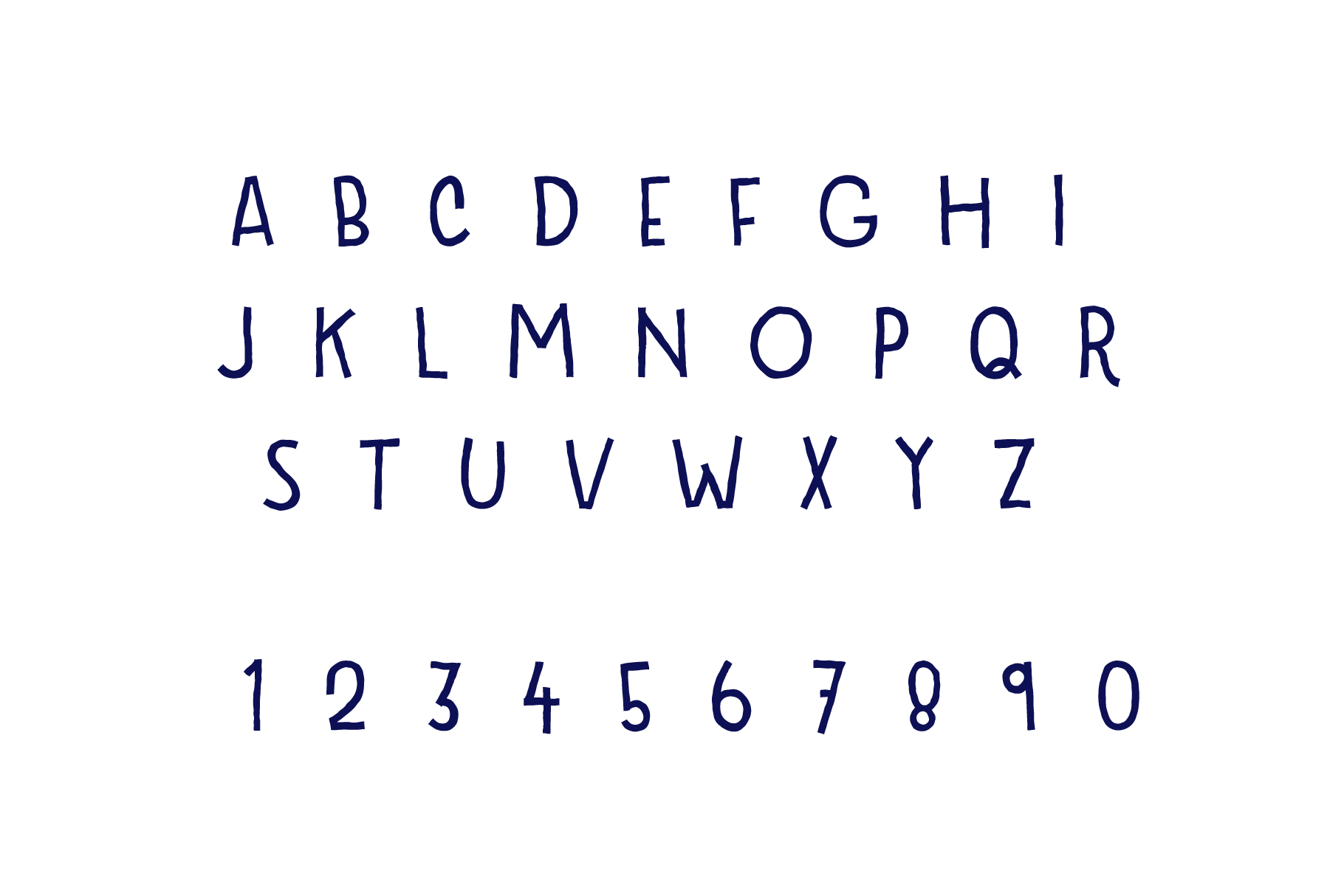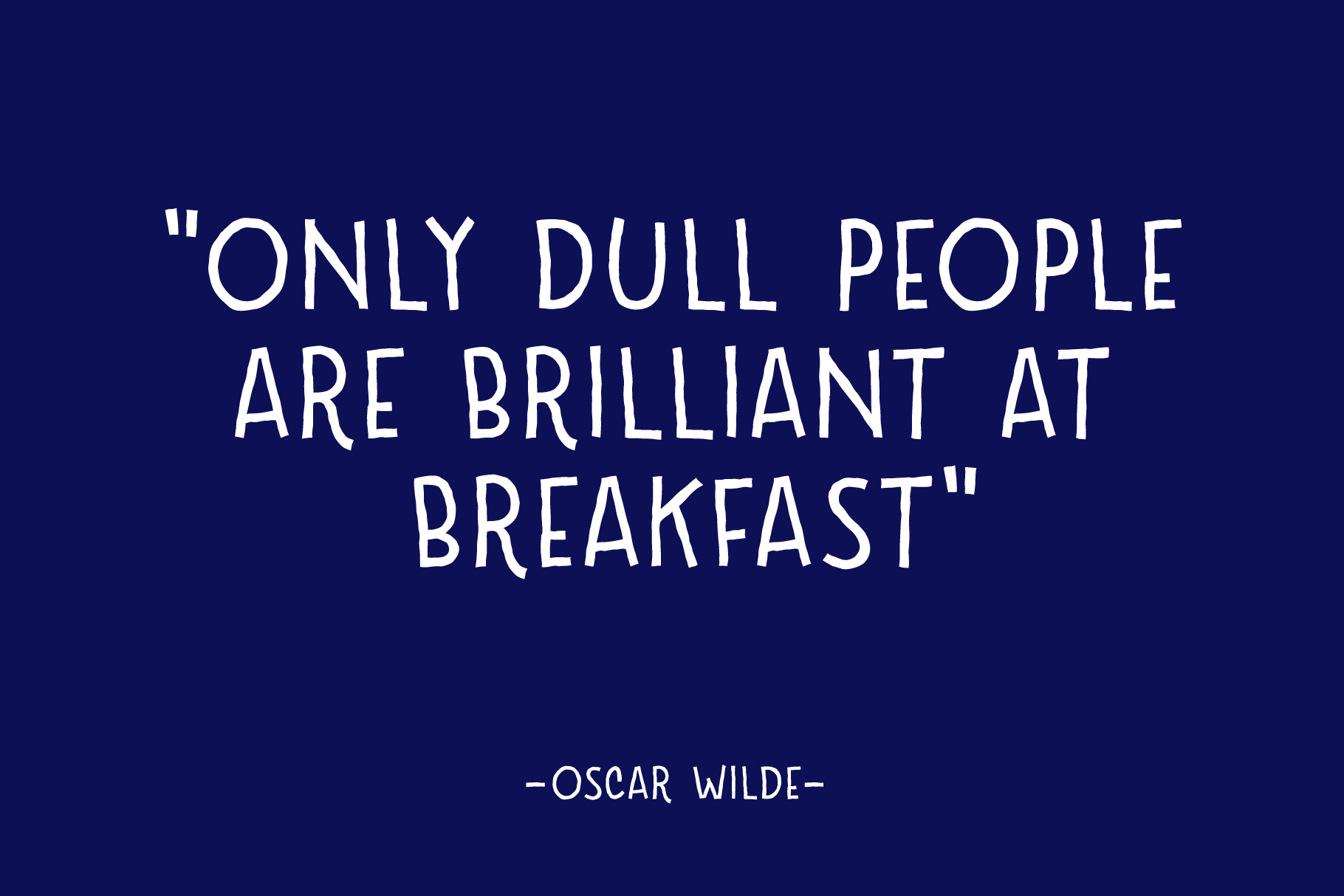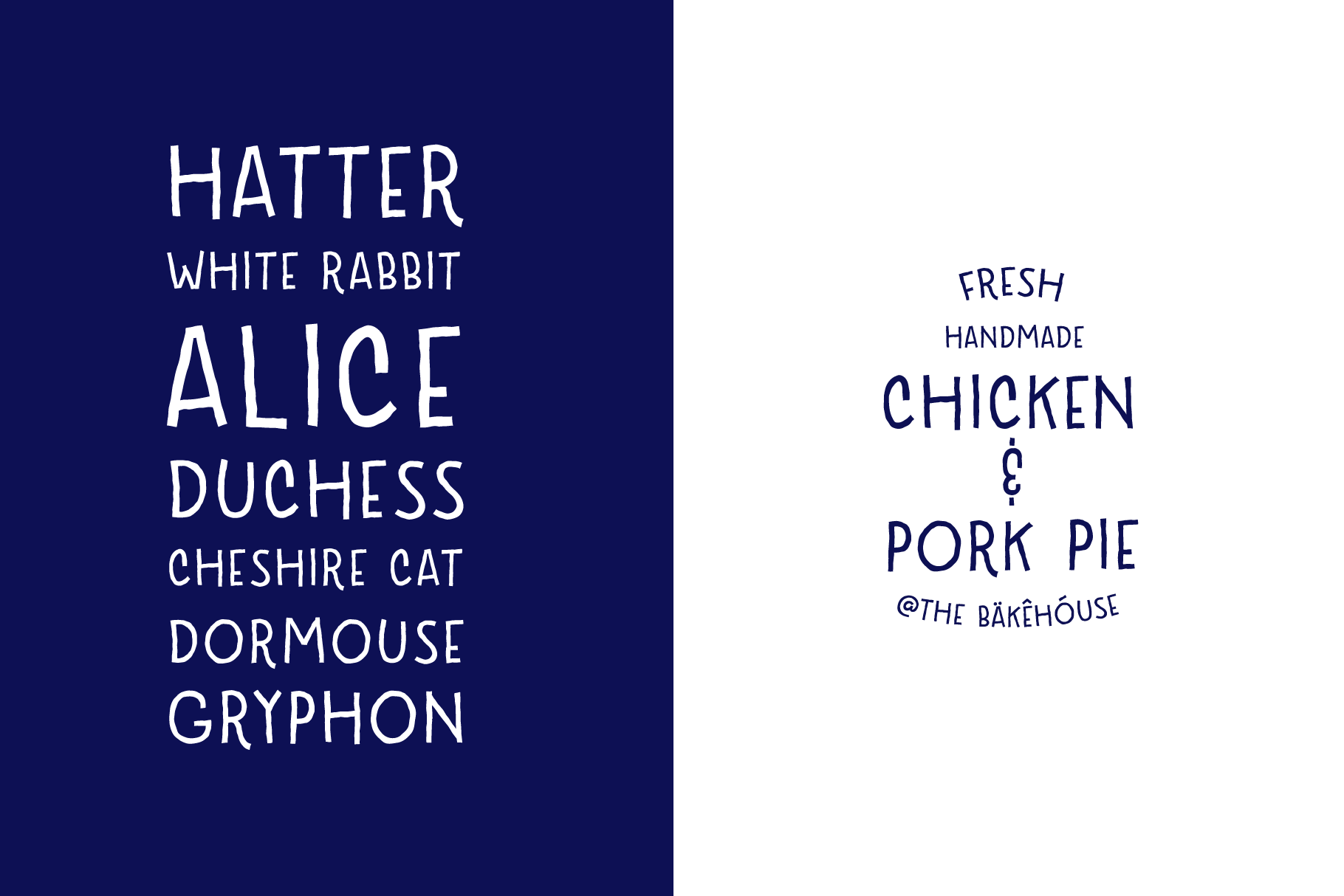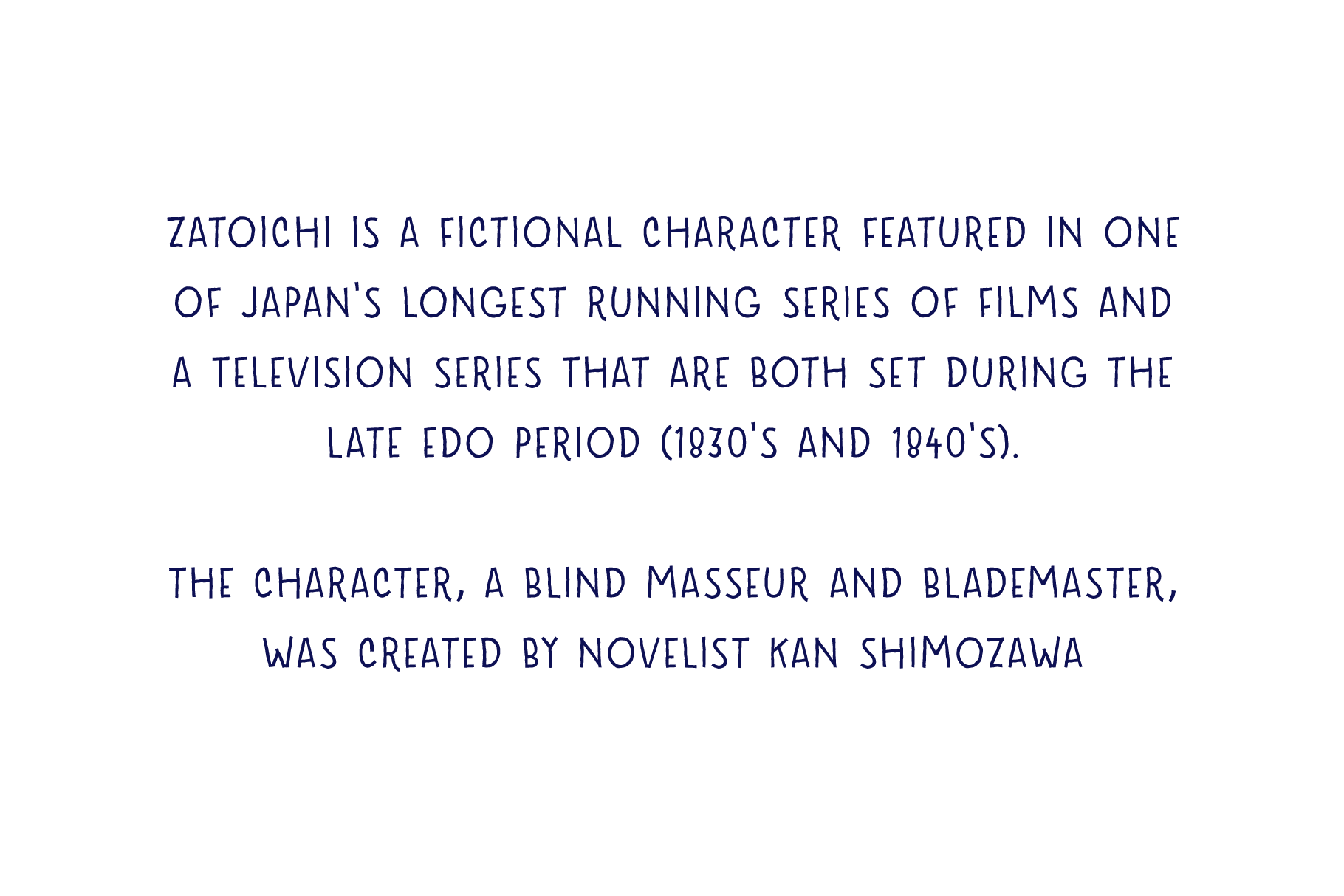
Bobby Font: The Fun and Charming Handwritten Sans Serif Font
Are you looking for a font that can add a cool and hip vibe to your creative projects? Look no further than the Bobby Font! This fun and charming handwritten sans serif font is ideal for logotype, thanks to its subtle ripped edges that give it a unique and edgy feel. In this article, we’ll take a closer look at the Bobby Font, its features, and how you can use it to elevate your designs.
What is Bobby Font?
Bobby Font is a handwritten sans serif font that is designed to be fun, charming, and versatile. Its subtle ripped edges give it a distinctive look that sets it apart from other fonts. The font is perfect for designers and crafters who want to add a personal touch to their projects. Whether you’re creating a logo, a poster, or a social media graphic, Bobby Font is sure to make your design stand out.
Key Features of Bobby Font
- Handwritten sans serif font: Bobby Font has a friendly and approachable feel that’s perfect for designs that require a personal touch.
- Subtle ripped edges: The font’s subtle ripped edges give it a unique and edgy feel that’s perfect for logotype and other creative projects.
- Cool and hip vibe: Bobby Font is designed to give your designs a cool and hip vibe that’s sure to appeal to a younger audience.
- Versatile: The font is versatile and can be used for a wide range of design projects, from logos and posters to social media graphics and more.
How to Use Bobby Font in Your Designs
Bobby Font is easy to use and can be incorporated into your designs in a variety of ways. Here are a few ideas to get you started:
- Logos: Use Bobby Font to create a unique and memorable logo for your business or brand.
- Posters: Add a cool and hip vibe to your posters with Bobby Font.
- Social media graphics: Use Bobby Font to create eye-catching social media graphics that will help you stand out from the crowd.
- Branding: Use Bobby Font to create a consistent brand identity across all of your marketing materials.
Tips for Using Bobby Font Effectively
Here are a few tips for using Bobby Font effectively in your designs:
- Keep it simple: Bobby Font is a bold and eye-catching font, so it’s best to keep your design simple and uncluttered.
- Experiment with colors: Bobby Font looks great in a variety of colors, so don’t be afraid to experiment and find the perfect color for your design.
- Use it sparingly: While Bobby Font is a great font, it can be overwhelming if used too much. Use it sparingly to add emphasis and interest to your design.
Bobby Font is a fun and charming handwritten sans serif font that’s perfect for designers and crafters who want to add a cool and hip vibe to their creative projects. With its subtle ripped edges and versatile design, Bobby Font is sure to become a favorite in your font collection. Whether you’re creating a logo, poster, or social media graphic, Bobby Font is the perfect choice.
- What is Bobby Font?: Bobby Font is a handwritten sans serif font with subtle ripped edges.